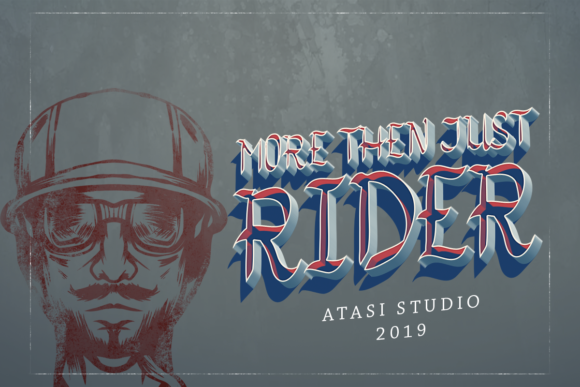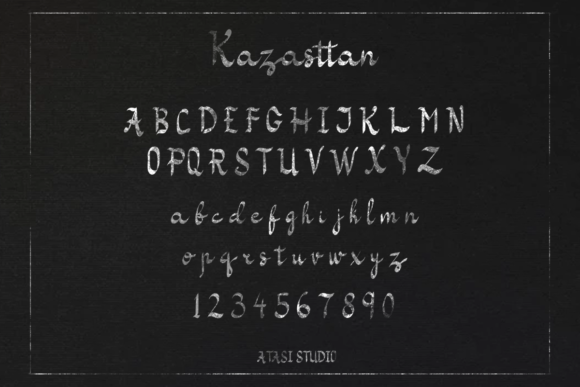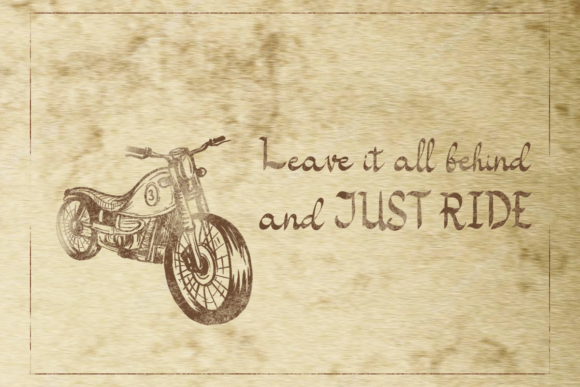
Introduction to Kazasttan Font
The Kazasttan is a striking calligraphy script.
Its vintage style is perfect for logos, badges, labels, posters, and much more .
Key Features of Kazasttan Font